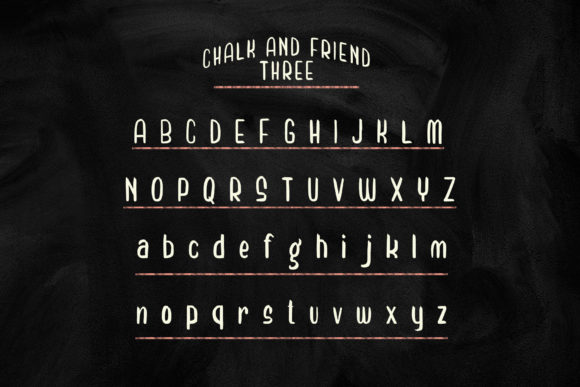
Chalk and Friend Font
Chalk and Friend is a cool and versatile display font. It will look stunning on any poster flyer or print. Use this font for your designs and explore its endless possibilities.